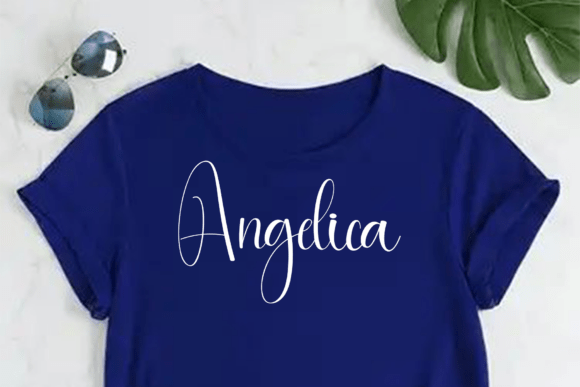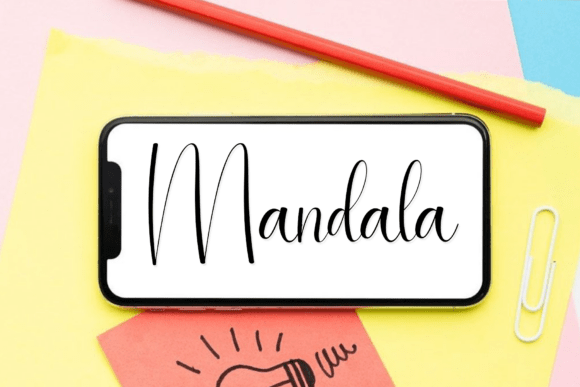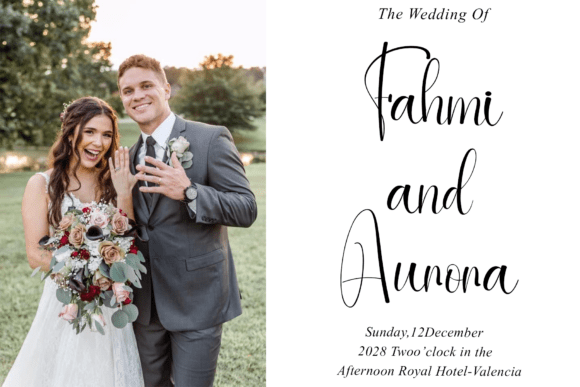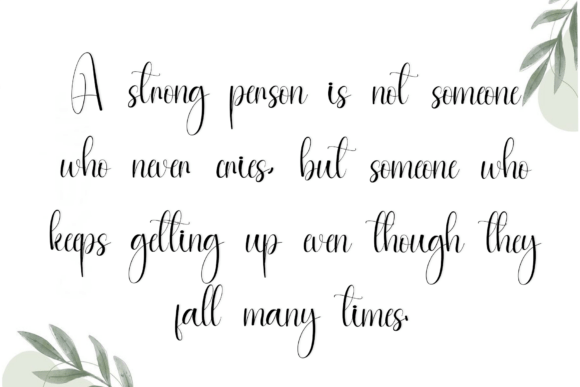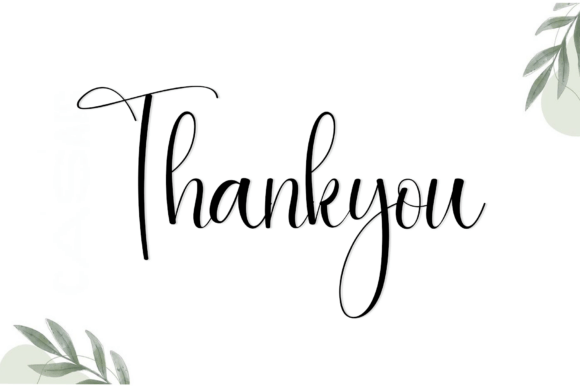
The Perfect Signature of Elegance: Discovering the Autography Font
Have you ever been stuck in a design rut, struggling to find the perfect font to convey your unique style and message? I know I have. It’s that moment when you’re pouring your heart and soul into a project, and the right font can make all the difference between a beautiful piece and a mediocre one.
That’s where the Autography Font comes in – a beautifully flowing and elegant modern handwritten script font that exudes sophistication and luxury. With its smooth, generous curves and elongated strokes, Autography Font is perfect for personal branding, photography watermarks, and any project that requires a touch of authenticity and natural elegance. For designers, Autography Font is a valuable addition to their toolkit, offering a unique and professional look that sets them apart from the rest.
Autography Font Key Features
- Unique Characteristics: Handwritten, cursive script font with a personal, elegant touch, ideal for creative and artistic projects
Autography Font Review
As a designer, I was excited to dive into the Autography Font, and I must say, it has some impressive features ✨. The first thing that caught my attention was the beautiful, handwritten feel it brings to any text. It’s perfect for creating a personal, touch-and-feel connection with the audience. The font also has a wide range of styles and weights, making it versatile for various design projects.
- Beautiful, handwritten feel ✨
- Wide range of styles and weights
- Perfect for creating a personal connection with the audience
- Can be used for various design projects, from logos to body text
However, there are a few limitations I’d like to mention ⚠️. The font can be a bit difficult to read in smaller sizes, and some letters may look similar, which can lead to readability issues. Additionally, the font may not be suitable for formal or corporate designs, as it has a more casual, handwritten feel.
Overall, I think the Autography Font is a great choice for designers looking to add a personal touch to their projects. While it may have some limitations, the beautiful, handwritten feel it brings is well worth the potential drawbacks. With a bit of careful use, this font can be a valuable addition to any designer’s toolkit.
The Autography Font is ideal for creating hand-written, signature-style text effects in various design applications. It’s commonly used for:
– Creating personalized invitations and greeting cards
– Adding a touch of elegance to wedding stationery and event materials
– Designing custom logos and branding materials
– Enhancing digital art and illustrations with a unique, handwritten feel
Tips for Getting the Most Out of Autography Font
To get the most out of the Autography Font, experiment with different font sizes, styles, and effects to create a unique look. Use it in combination with other design elements, such as images and graphics, to add depth and visual interest to your designs.